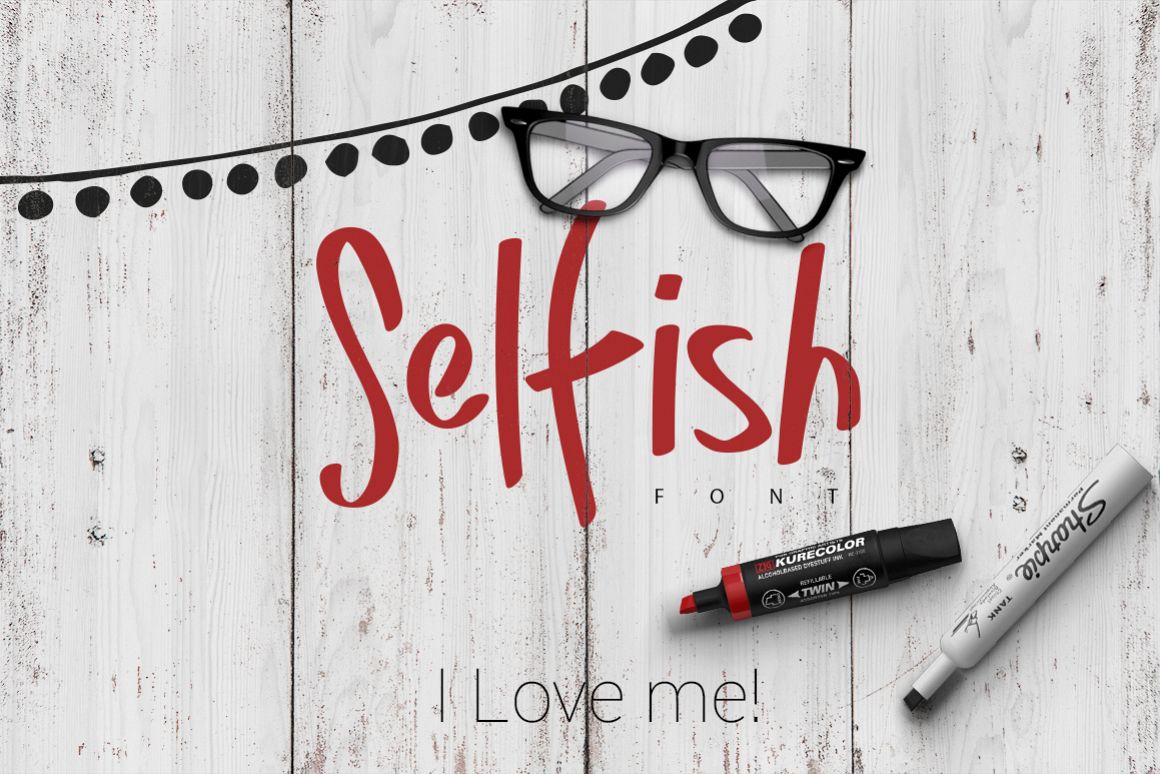
Selfish Font
Selfish-Bold
Selfish-Regular
Selfish-Light
Selfish is a handmade marker font. Take care only about yourself and not other people to create your designs. Bold, regular & light.